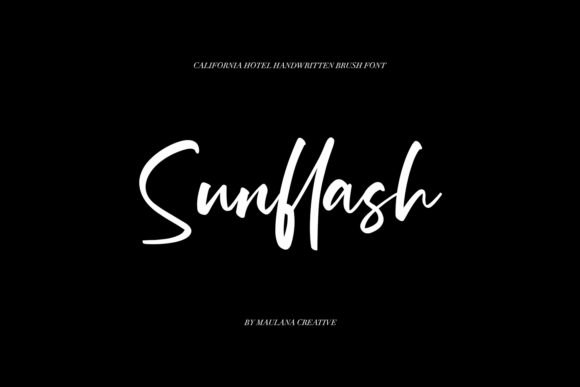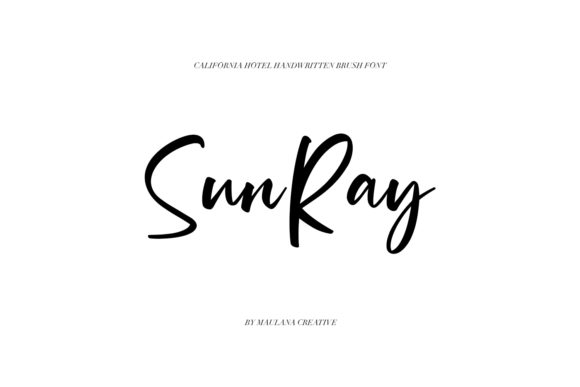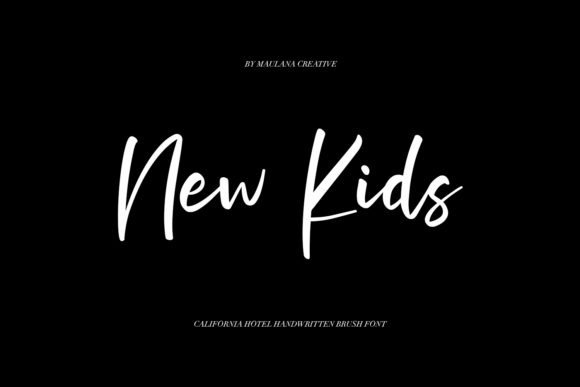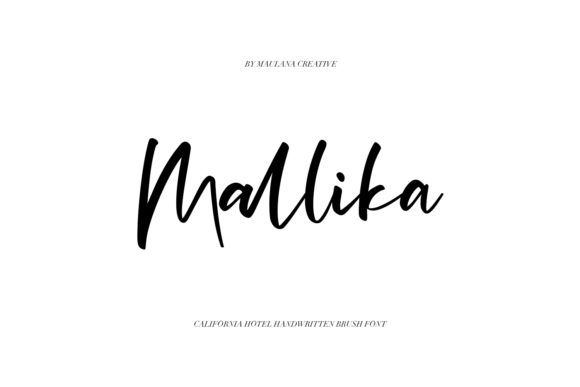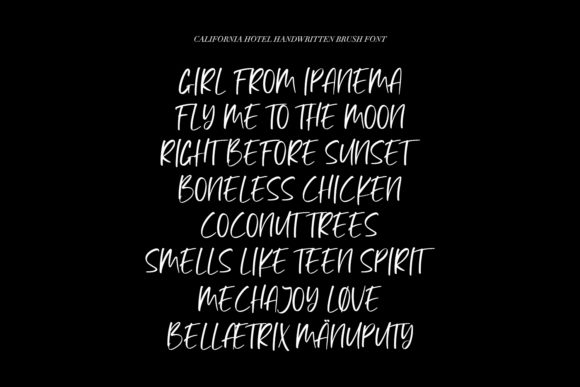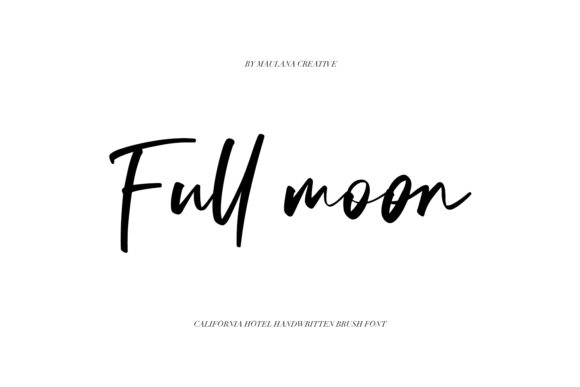
The Magical California Hotel Font: Elevate Your Designs with Elegance
I’ll never forget the design project that led me to discover the California Hotel font. I was working on a branding project for a luxury hotel, and I was struggling to find the perfect font that exuded elegance and sophistication. The client wanted a font that would make their brand stand out, but still convey a sense of warmth and approachability. After hours of scouring font libraries and testing various options, I stumbled upon California Hotel – and it was love at first sight! ✨
So, what makes California Hotel so special? Here are a few things that I absolutely love about this font:
• ✨ Elegant handwritten feel that’s perfect for luxury brands or high-end designs
• 💫 Beautifully crafted with attention to detail and a touch of whimsy
• 🎨 Versatile and works well for a variety of design projects, from Instagram graphics to calligraphy scripts
Of course, no font is perfect, and California Hotel has a few quirks to be aware of:
• 🤔 Some users may find the font a bit too ornate or over-the-top for certain projects
• ⚠️ Limited availability of certain glyphs or special characters, which may limit its use in certain contexts
The Story Behind California Hotel
California Hotel was designed by a talented type designer who wanted to create a font that captured the essence of California’s laid-back, yet sophisticated vibe. The font was inspired by the state’s rich history, from the glamour of Hollywood to the rugged beauty of the coastline. The result is a font that’s both elegant and approachable – perfect for designs that need a touch of luxury and whimsy.
What makes California Hotel so special? California Hotel is a unique, handwritten font that combines elegance and sophistication with a touch of whimsy.
Is California Hotel suitable for body text? While California Hotel is highly legible, it’s best suited for headlines and titles. For body text, you may want to choose a more traditional font.